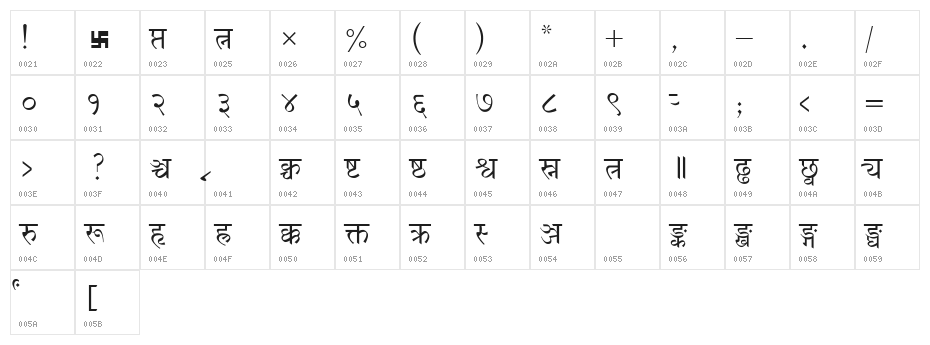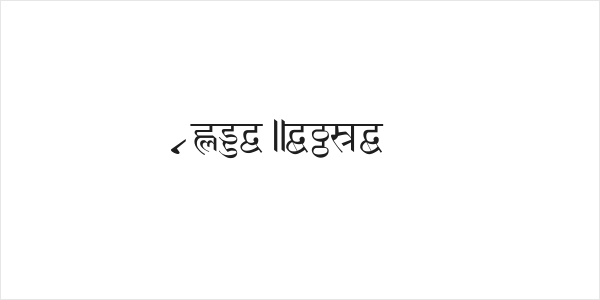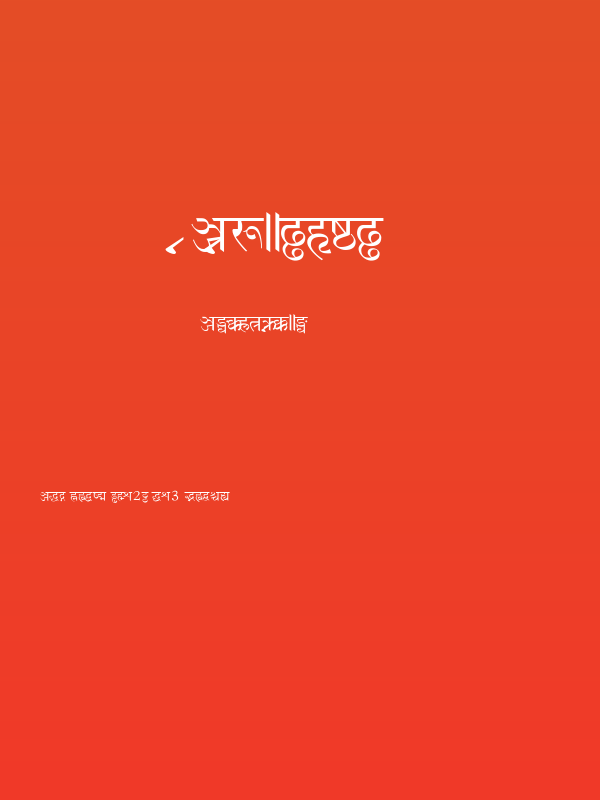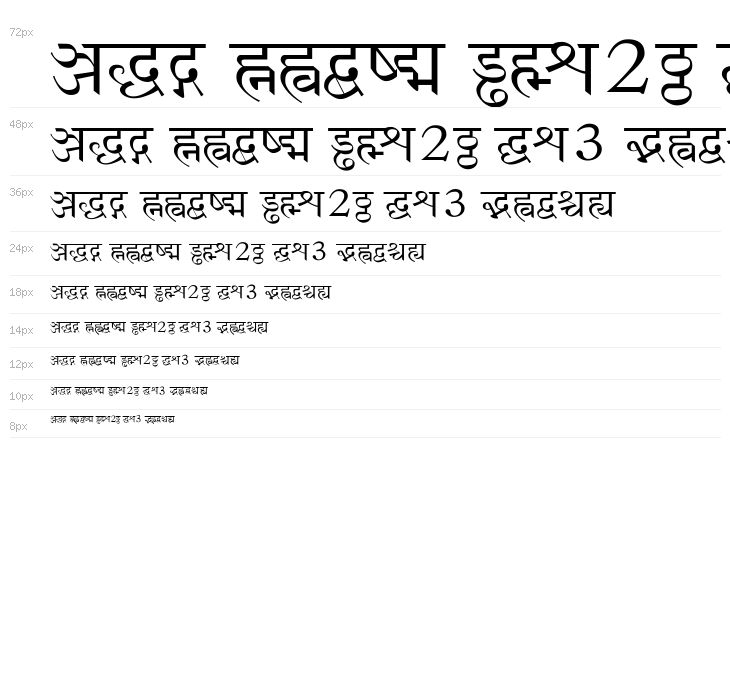
AtamHindi Font
AtamHindi Description
This font features a traditional Devanagari script style, characterized by its elegant and flowing lines. The characters are well-defined with a moderate stroke contrast, giving it a classic yet readable appearance. The script maintains a balance between decorative elements and legibility, making it suitable for both formal and informal contexts. The numerals and special characters are designed to complement the script, maintaining consistency in style. The overall look is sophisticated, with a touch of cultural heritage, making it ideal for projects that require a traditional Indian aesthetic.
Overall StyleClassic
Use CaseHeadlines, Body text, Cultural projects
Proposed ProjectsIdeal for cultural publications, traditional event invitations, educational materials, and artistic projects that require a classic Indian aesthetic.